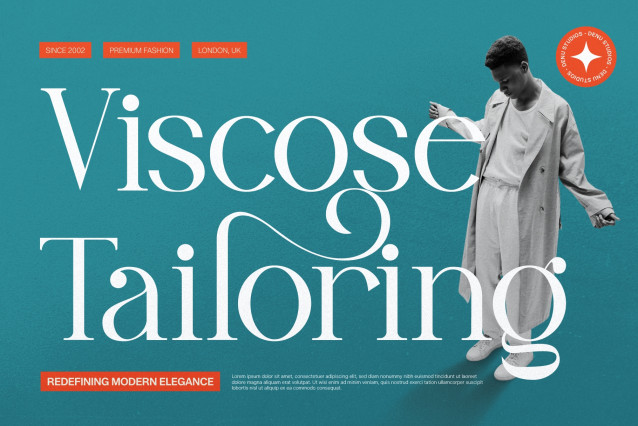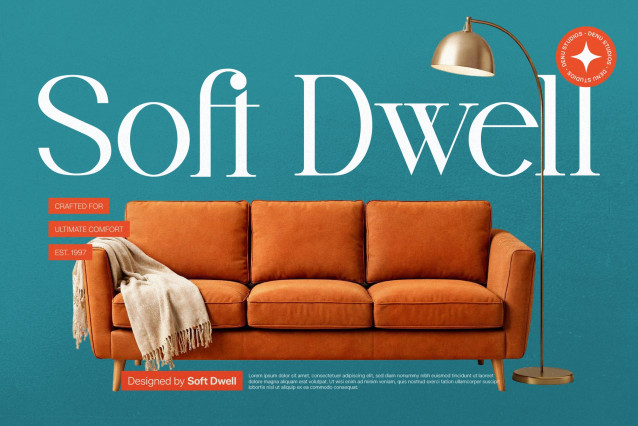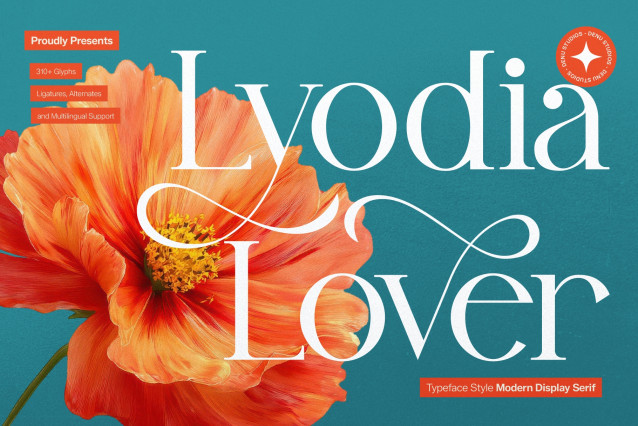
Lyodia Lover Modern Display Serif Font
Lyodia Lover Modern Display Serif product packaging, mugs, quotes, posters, shopping bags, t-shirts, book covers, name card, invitation cards, greeting cards, label, photography, watermark, special events, and all your other lovely projects that need a Serif font taste.